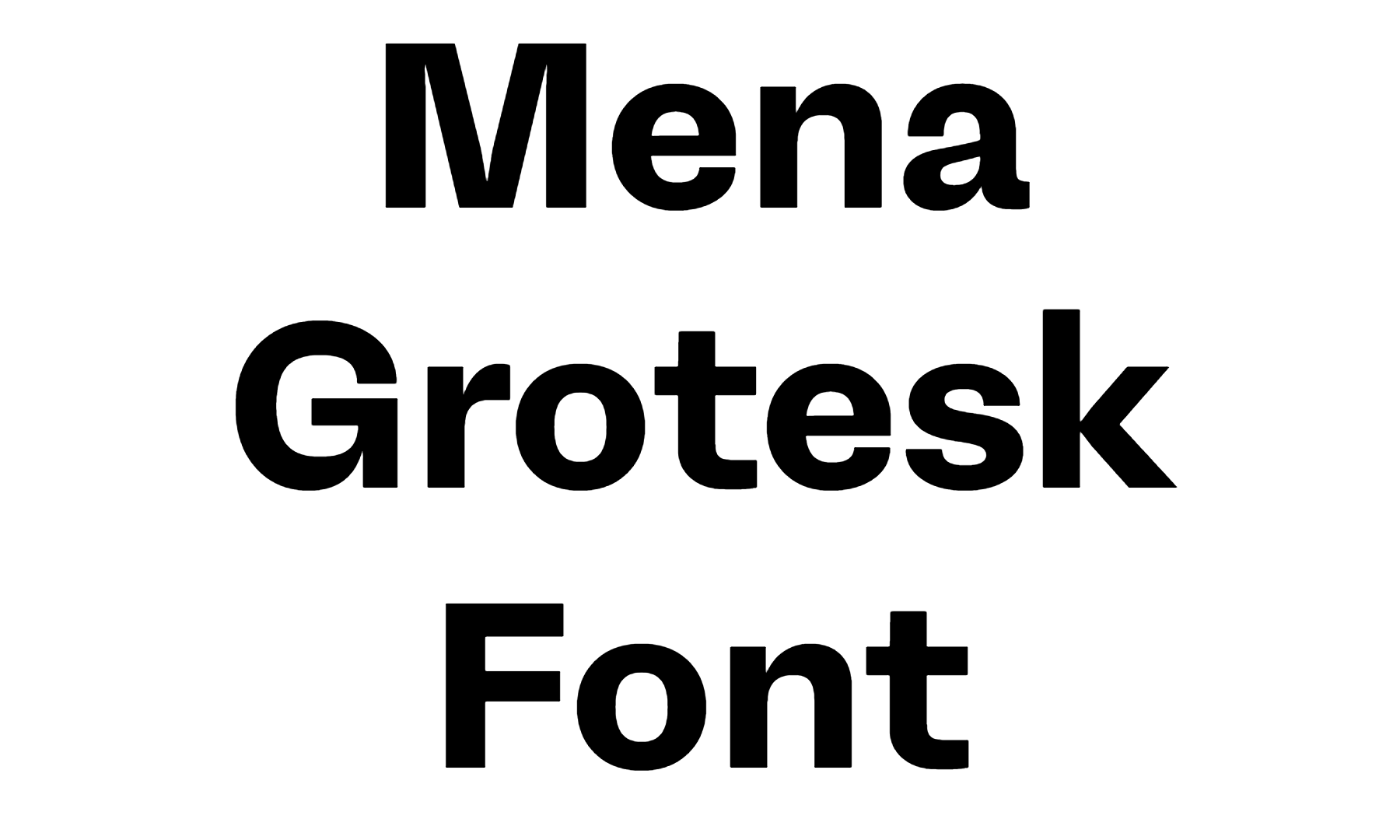
Mena Grotesk
Mena Grotesk is a sans serif font designed by Alexis Navarro Miranda and published by Compañía Tipográfica de Chile (2018). It has a clean, no-nonsense look that fits modern brands and websites. You get 12 styles in one free ZIP, and the preview above lets you test each one before you download.
- Designer: Alexis Navarro Miranda
- Publisher: Compañía Tipográfica de Chile
- Font styles: 12 (Book, Regular, Thin, Thin Italic, UltraLight, Light, UltraLight Italic, Book Italic, Regular Italic, Medium and Medium Italic)
- Weights: Light (300) to Medium (500)
- Glyphs: 891 in the Book style
- OpenType features: Ligatures (including optional ones), stylistic alternates, 7 stylistic sets, small caps, old-style numbers and fractions
What You Can Type With Mena Grotesk
Mena Grotesk covers the full alphabet in upper and lowercase, plus all ten numbers, so you can set names, dates and prices without switching fonts. Everyday marks like &, !, ? and @ are there too. Thanks to its accented letters, it also works for Spanish, French, German, Portuguese and Italian, not just English. Of its 891 glyphs, about 428 are not on your keyboard at all. That is where the alternates explained below live.
Where Mena Grotesk Works Best
Mena Grotesk is a natural fit for websites, app screens and clean logos. It works for headings and body text alike. If the download has several weights, use a heavier one for titles and a lighter one for paragraphs. Because the family has more than one style, you can mix them in a single design for headings, subheadings and highlights.
Who designed Mena Grotesk font?
Mena Grotesk was designed by Alexis Navarro Miranda and published by Compañía Tipográfica de Chile. The copyright line inside the font is dated 2018.
Does Mena Grotesk support accented letters?
Yes. Mena Grotesk includes the accented letters needed for Spanish, French, German, Portuguese and Italian, so it works for more than just English.